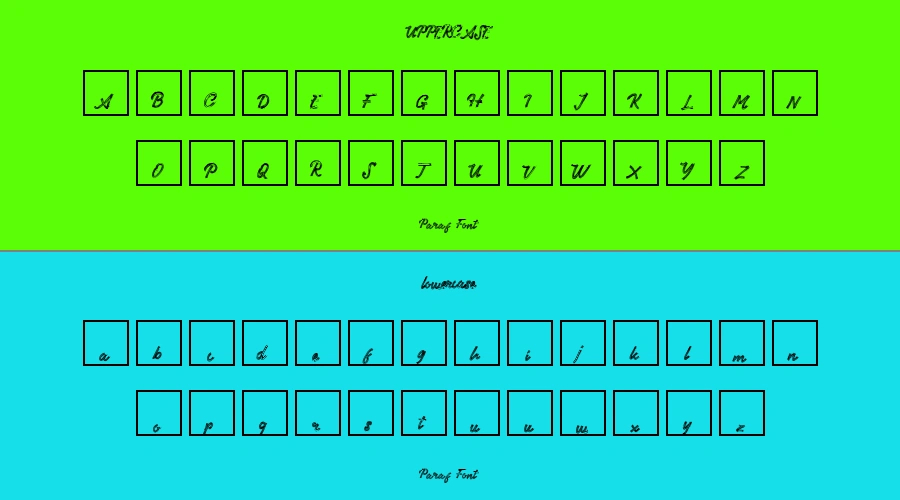
About Paraf Font
Paraf Font represents a sophisticated approach to type design, balancing rounded corners with textural consistency. Perfect for corporate communications, this font family showcases impressive functionality and professional finish throughout its character set. Designers appreciate its versatility and reliability.
Designers will appreciate nuanced touches including curved brackets and mid-word alternates, adding sophistication to any project. These features become apparent in event graphics, where memory recall matters most. The careful treatment of x-height and educational suitability ensures optimal performance.